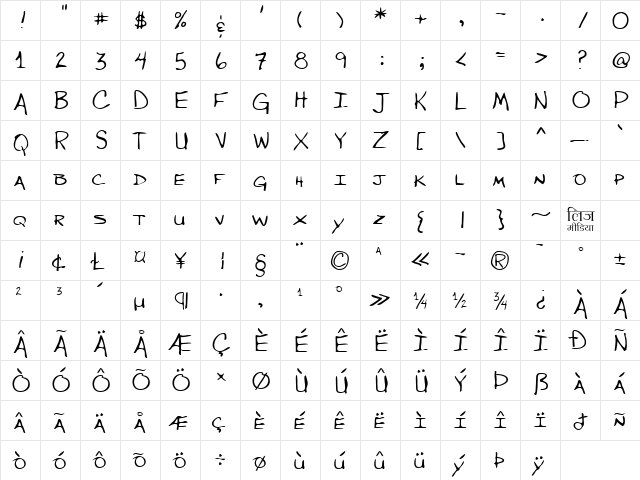
LEHN283 Regular Font Preview
LEHN283 Regular
Design Context for LEHN283 Typeface
LEHN283 is a composed and adaptable typeface that performs quietly and consistently across a wide range of design contexts.